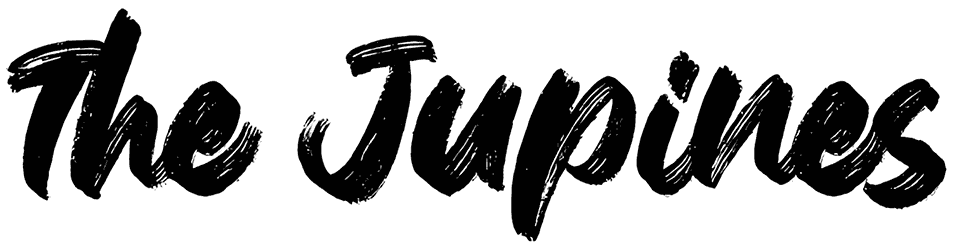
The Jupines Font
We have just added a lovely script font, mostly known as The Jupines, that comes with angular letters and looks totally suitable for all of your professional needs.
This brush font can widen your selection range in the realm of designing editorial projects such as social media posts, billboards, flyers, book covers, and magazines. Needless to say that it carries a sense of tenderness, fierceness, and personalization. Visit our archive to find more products the same to this one.